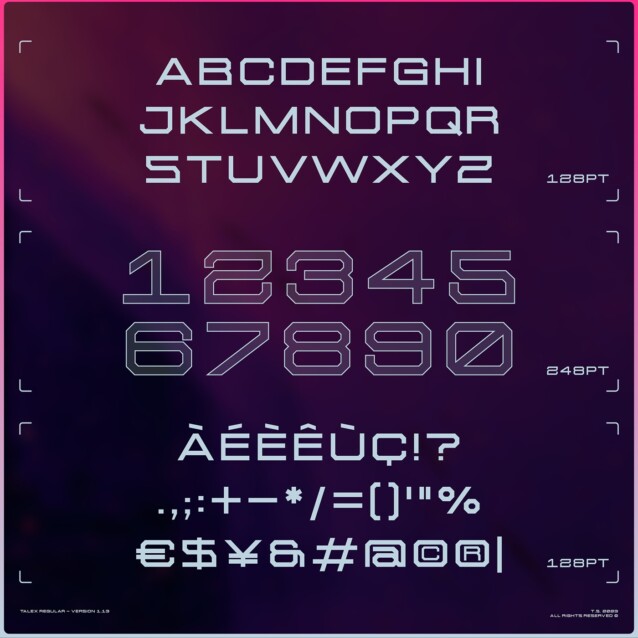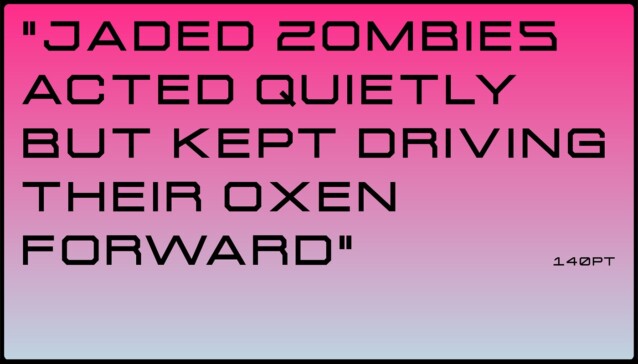
Talex Regular Font is a squareish sans-serif display font, coming in very sophisticated all-caps. Ready to use for your design like labeling, clothing, movie sceen, poster, movie title, gigs, album covers, logos, and much more.